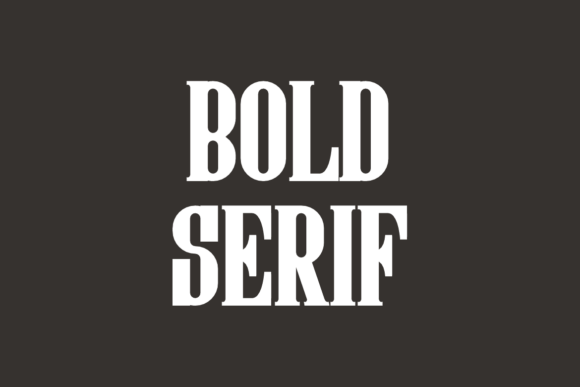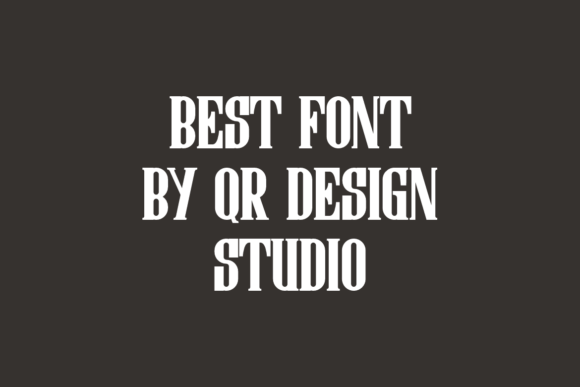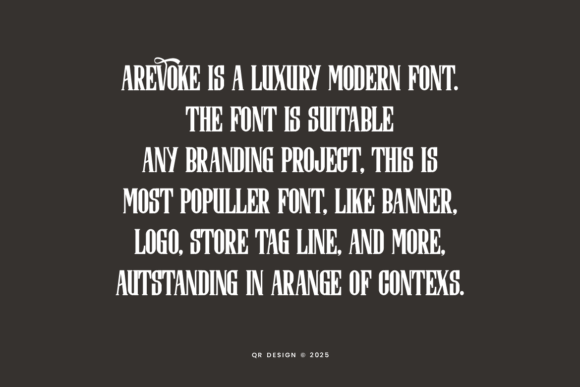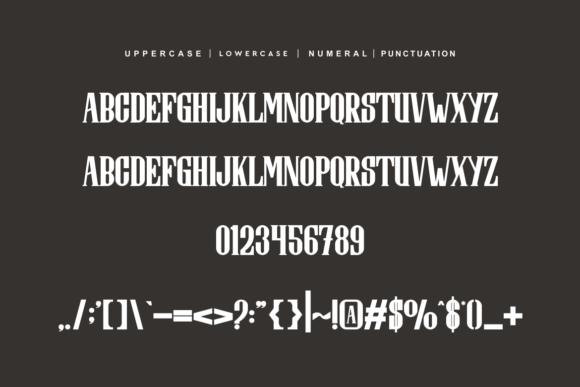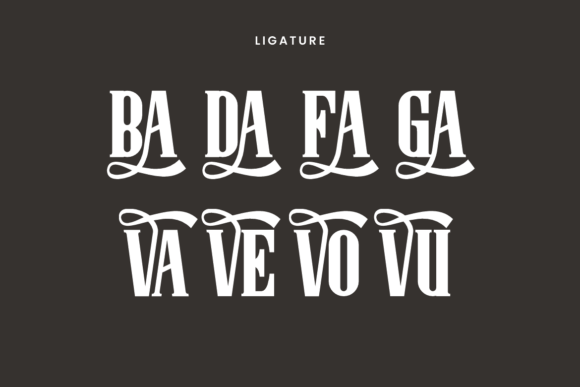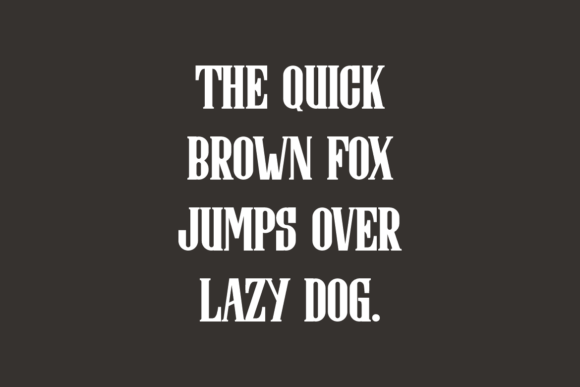
Arevoke Font: Elevate Your Designs with a Cool and Unique Serif Font
Arevoke is a cool and unique serif font that can add a touch of sophistication and elegance to your creative projects. With its distinctive design and versatility, Arevoke is perfect for designers and crafters looking to make a statement. In this article, we’ll explore the features and benefits of Arevoke, and show you how to incorporate it into your designs.
The Story Behind Arevoke
Arevoke is a carefully crafted font that combines traditional serif elements with modern twists and unique flair. Its design is inspired by classic typography, but with a fresh and contemporary spin. The result is a font that is both nostalgic and forward-thinking, making it perfect for a wide range of design applications.
Key Features of Arevoke
- Unique Serif Design: Arevoke’s serif design is unlike any other. Its distinctive flair and classic lines make it stand out from the crowd.
- Versatile: Arevoke is suitable for a wide range of design projects, from logos and branding to headings and body text.
- Elegant and Sophisticated: Arevoke adds a touch of sophistication and elegance to any design, making it perfect for high-end brands and luxury products.
- Easy to Read: Despite its unique design, Arevoke is highly legible, making it perfect for body text and other long-form content.
Benefits of Using Arevoke
So why choose Arevoke for your design projects? Here are just a few benefits of using this amazing font:
- Stand Out from the Crowd: Arevoke’s unique design ensures that your designs will stand out from the crowd and grab attention.
- Elevate Your Brand: With its elegant and sophisticated design, Arevoke can help elevate your brand and give it a high-end feel.
- Versatile and Flexible: Arevoke can be used for a wide range of design projects, from print to digital.
How to Use Arevoke in Your Designs
Using Arevoke in your designs is easy. Here are a few tips to get you started:
- Pair it with Other Fonts: Arevoke pairs well with a range of other fonts, from sans-serif to script fonts.
- Experiment with Different Sizes: Arevoke looks great in a range of sizes, from large headings to smaller body text.
- Use it for Headings and Titles: Arevoke’s unique design makes it perfect for headings and titles.
- Add it to Your Brand Identity: Consider using Arevoke as part of your brand identity, including logos, business cards, and letterheads.
Arevoke is a cool and unique serif font that can add a touch of sophistication and elegance to your creative projects. With its distinctive design, versatility, and ease of use, Arevoke is perfect for designers and crafters looking to make a statement. Whether you’re looking to elevate your brand, stand out from the crowd, or simply add some flair to your designs, Arevoke is the perfect choice. So why not give it a try and see the results for yourself?